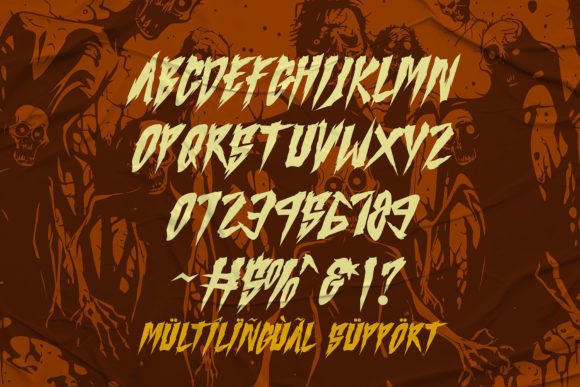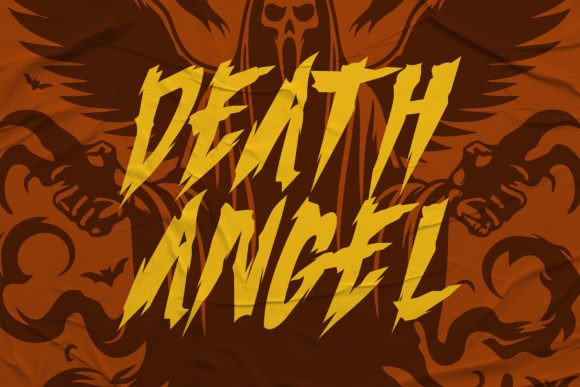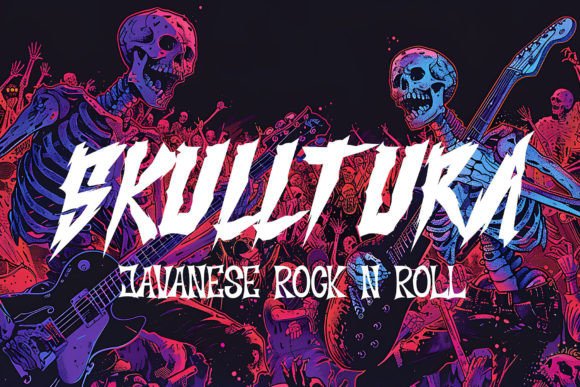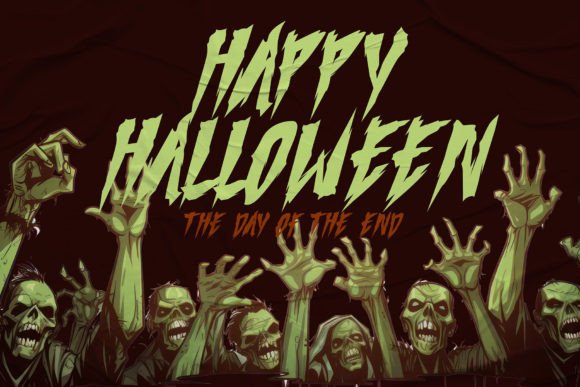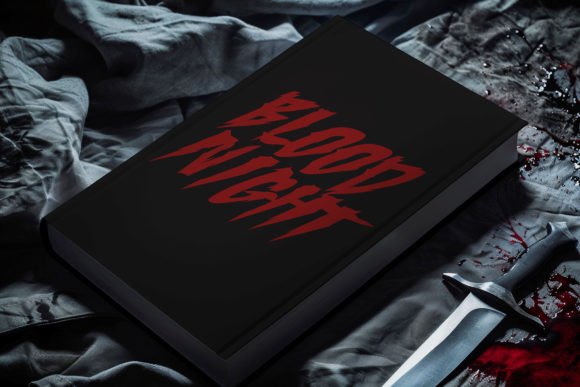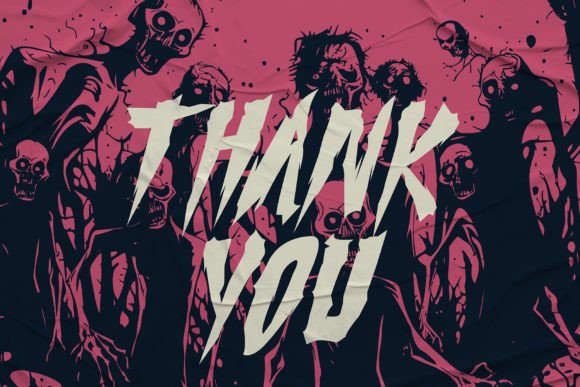
Unleash the Horror with Ghostly Whispe: The Ultimate Brush Horror Font
Are you looking to add a spine-chilling touch to your creative projects? Do you want to evoke a sense of eerie intrigue and suspense in your designs? Look no further than Ghostly Whispe, a terrifying brush horror font that is sure to send shivers down the spines of your audience. With its ominous brush strokes and disquieting design, Ghostly Whispe is the perfect choice for all your horror or Halloween-themed creative pursuits.
The Embodiment of Fear and the Paranormal
Ghostly Whispe is more than just a font – it’s an experience. Its stark, hand-etched semblance resembles the echo of a spectral whisper in the darkness, rendering it a sublime fit for encapsulating the very embodiment of fear and the paranormal in your creations. With Ghostly Whispe, you can convert regular invitations into spooky ones, revamp posters with a bone-chilling appeal, or lend a sense of dread to social media graphics.
Breathe Life into an Atmosphere of Nail-Biting Suspense
Ghostly Whispe has the power to transform your designs into a heart-pounding, thrilling experience. Its unique brush strokes and haunting appearance will leave your audience on the edge of their seats, eagerly anticipating what’s next. Whether you’re designing a horror movie poster, a Halloween party invitation, or a creepy social media graphic, Ghostly Whispe is the perfect font to create a sense of nail-biting suspense.
Ghostly Whispe is a versatile font that is perfect for designers and crafters alike. With its wide range of uses, you can create a variety of spooky and terrifying designs, including:
- Horror movie posters and flyers
- Halloween party invitations and decorations
- Creeps and horror-themed social media graphics
- Spine-chilling logos and branding
- Eerie and haunting typography
Key Features of Ghostly Whispe
So, what makes Ghostly Whispe the ultimate brush horror font? Here are some of its key features:
- Ominous brush strokes for a haunting appearance
- Disquieting design to evoke a sense of fear and suspense
- Stark, hand-etched semblance for a unique look
- Perfect for horror or Halloween-themed creative pursuits
- Wide range of uses, from posters to social media graphics
Tips for Using Ghostly Whispe
To get the most out of Ghostly Whispe, here are some tips for using this terrifying font:
- Use it sparingly to create a sense of drama and suspense
- Combine it with other fonts for a unique and eye-catching look
- Experiment with different colors and textures to enhance the eerie effect
- Use it consistently across your designs to create a cohesive brand identity
In conclusion, Ghostly Whispe is the ultimate brush horror font for designers and crafters looking to add a spine-chilling touch to their creative projects. With its ominous brush strokes, disquieting design, and stark, hand-etched semblance, Ghostly Whispe is the perfect choice for all your horror or Halloween-themed creative pursuits. So, why wait? Unleash the horror with Ghostly Whispe and breathe life into an atmosphere of nail-biting suspense.